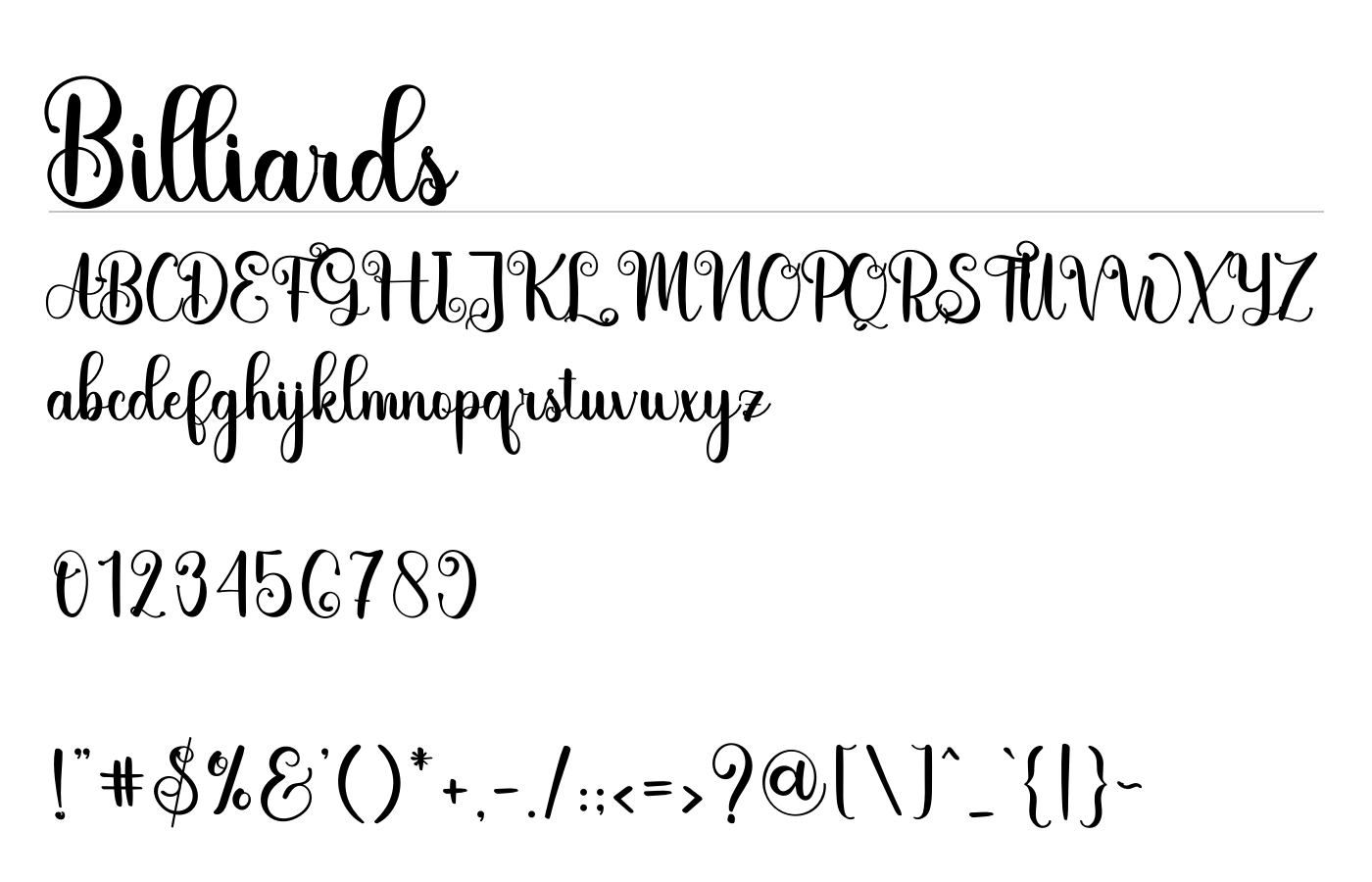
Billiards Font is a playful and elegant script typeface featuring smooth, flowing strokes with charming curls and decorative swirls on uppercase letters, contrasting with simpler yet stylish lowercase forms. Its medium weight and balanced proportions make it perfect for adding a whimsical yet refined touch to invitations, branding, and headlines. This font works well in designs that seek to convey creativity, friendliness, and a sense of fun while maintaining a polished appearance.
Billiards Font
About Billiards Font